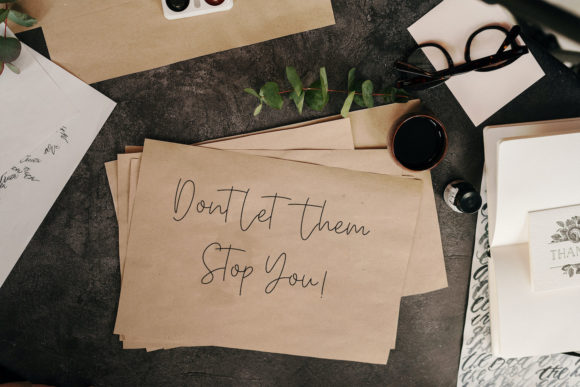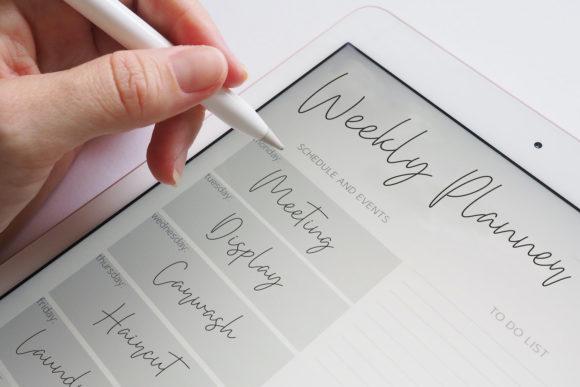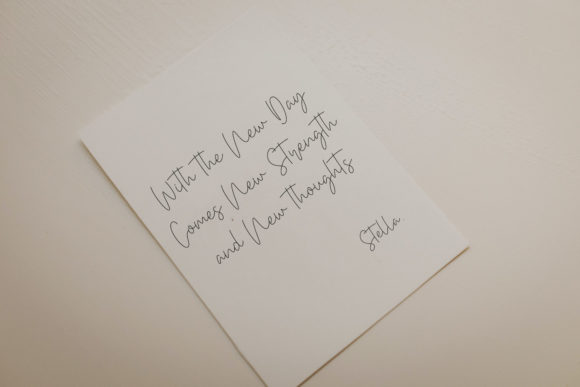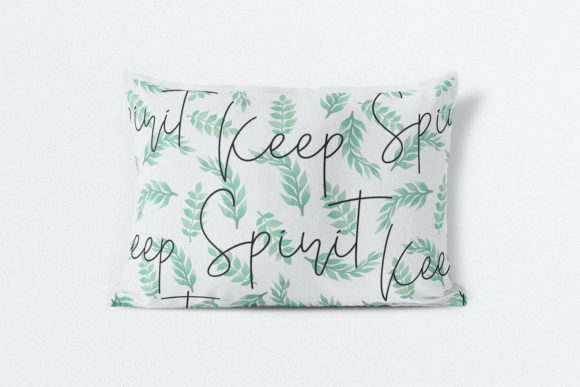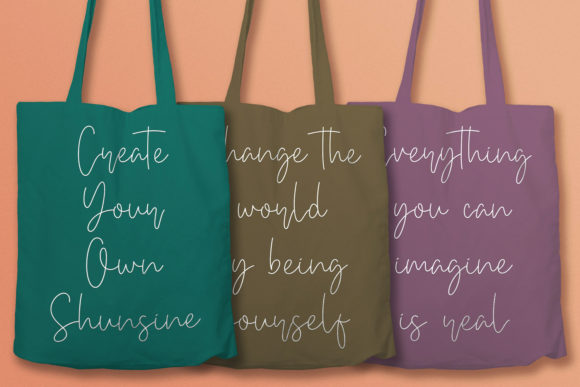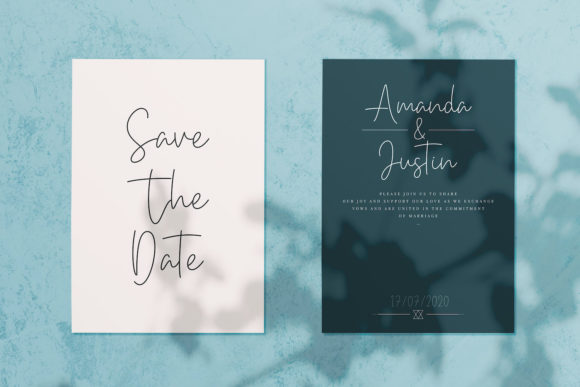
Bethan White Font: Elevate Your Designs with Elegance and Charm
Bethan White Font is a breathtaking handwritten font that exudes charm and elegance, making it the perfect addition to any design project. This stunning font is a stylish tribute to classic calligraphy, offering a sophisticated and refined aesthetic that will elevate your designs to new heights.
A Stylish Homage to Classic Calligraphy
Bethan White Font is a masterful recreation of traditional calligraphy, with flowing lines and delicate strokes that evoke a sense of luxury and refinement. The font’s elegant appearance makes it an ideal choice for designers and crafters looking to add a touch of sophistication to their work.
Whether you’re working on branding, headings, wedding designs, invitations, signatures, logos, labels, or any other type of design project, Bethan White Font is the perfect choice. Its versatility and flexibility make it suitable for a wide range of applications, from digital designs to print materials.
Key Features of Bethan White Font
- Handwritten elegance: Bethan White Font boasts a beautiful, handwritten appearance that adds a personal touch to any design.
- Classic calligraphy inspiration: The font’s classic calligraphy inspiration gives it a timeless and sophisticated feel.
- Versatile and flexible: Use Bethan White Font for a variety of design projects, from branding and headings to wedding designs and invitations.
- Elegant and refined: The font’s elegant appearance makes it perfect for designs that require a touch of sophistication.
Why Choose Bethan White Font?
There are many reasons why Bethan White Font stands out from the crowd. Here are just a few:
- Unique and distinctive: Bethan White Font offers a unique and distinctive appearance that will set your designs apart from the rest.
- Easy to read and understand: Despite its elegant appearance, Bethan White Font remains easy to read and understand, making it perfect for designs that require clarity and legibility.
- High-quality design: The font is designed to the highest standards, ensuring a flawless and professional appearance.
Design Ideas with Bethan White Font
Bethan White Font is an incredibly versatile font that can be used in a wide range of design projects. Here are a few ideas to get you started:
- Wedding designs: Use Bethan White Font to create beautiful wedding invitations, programs, and decorations.
- Branding and logos: Add a touch of elegance to your brand with Bethan White Font, perfect for luxury brands and high-end businesses.
- Invitations and greeting cards: Create stunning invitations and greeting cards with Bethan White Font, perfect for special occasions and events.
- Signatures and labels: Use Bethan White Font to add a touch of sophistication to signatures, labels, and other design elements.
Bethan White Font is a truly exceptional handwritten font that offers a unique blend of elegance and charm. With its classic calligraphy inspiration, versatile design, and high-quality craftsmanship, this font is perfect for designers and crafters looking to elevate their designs to the highest level. Whether you’re working on branding, wedding designs, or any other type of project, Bethan White Font is sure to impress.